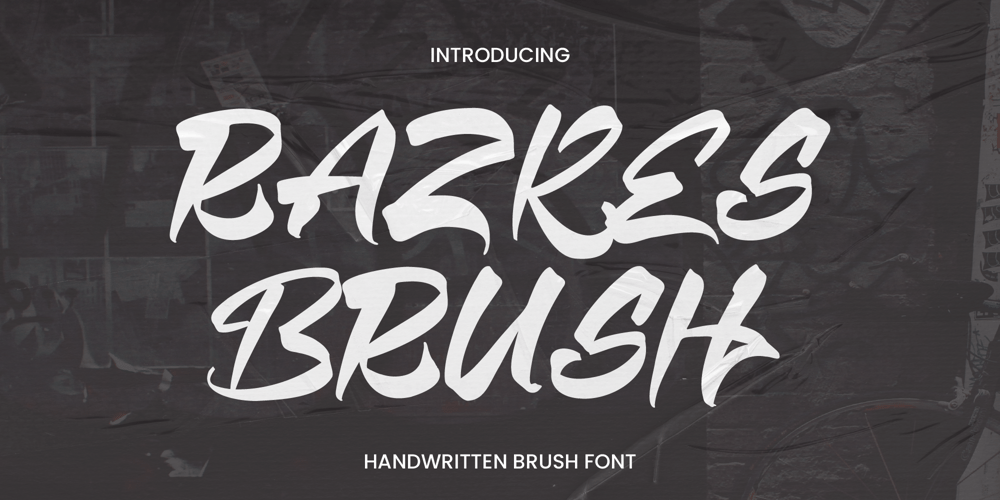
Razkes Brush Font Family was designed by Randi Irvan and published by Rvandtype. Razkes Brush contains 1 styles and family package options. Razkes Brush is a cool urban style font. Its elegant and cool look makes it the perfect choice for logos, branding, invitations, stationery, wedding designs, social media posts, and so much more.Features : Numbers and punctuation Multilingual PUA encoded